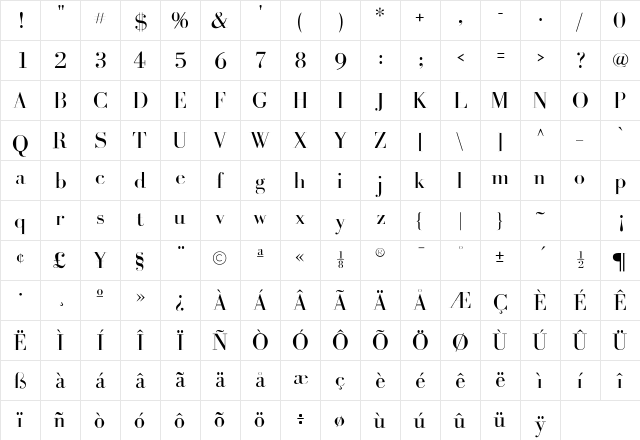
BodoniLaser Roman
Design Context for BodoniLaser Typeface
BodoniLaser offers clean, dependable letterforms without strong stylistic allegiance, making it a practical choice for designers who need flexibility.
Pro Tip: Use BodoniLaser in both headline and body roles to test its range before committing to a single application.